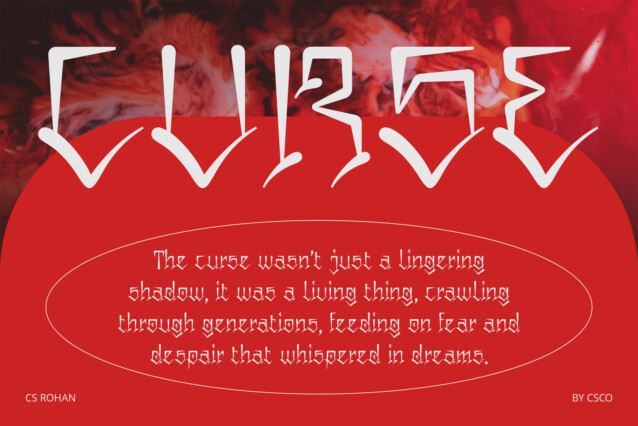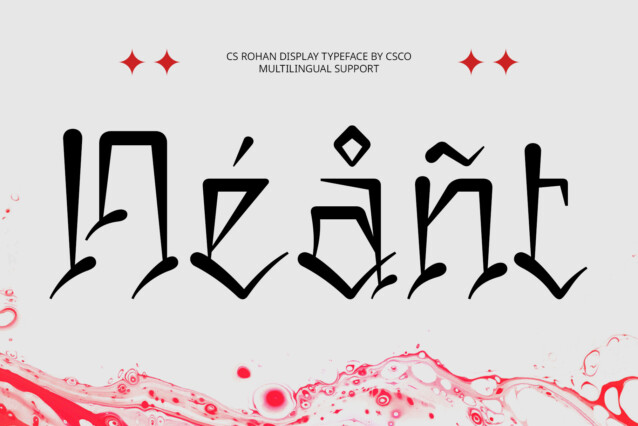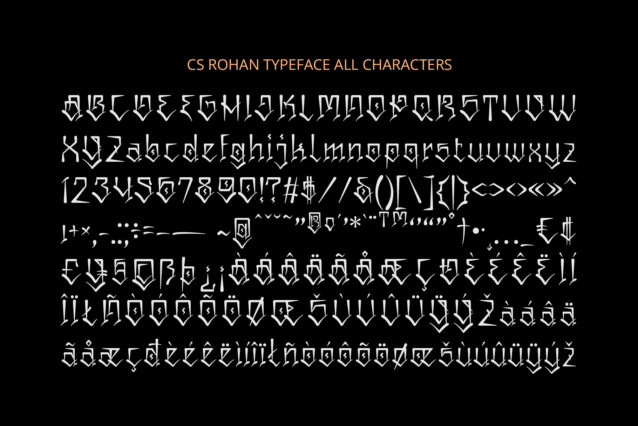
CS Rohan Font
CS Rohan Font is a Chicano graffiti-inspired display font that brings a dynamic and expressive vibe to any design. Drawing from the powerful influence of Chicano street art, this font showcases bold, heavy letterforms with distinctive curves, irregular shapes, and intricate details. Its striking visual presence exudes a sense of rebellious energy and creative freedom, making it perfect for designs that need to make a bold statement.